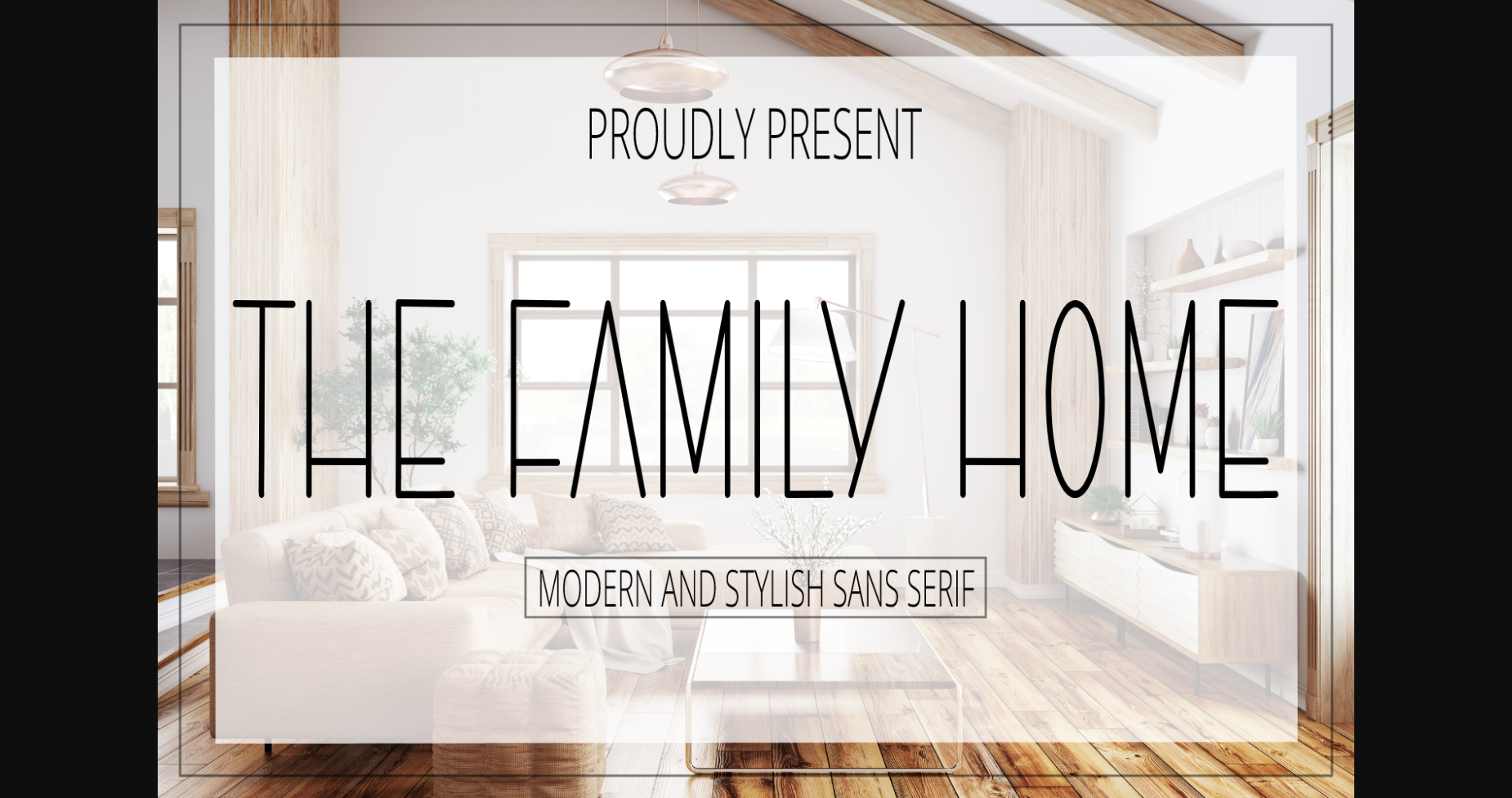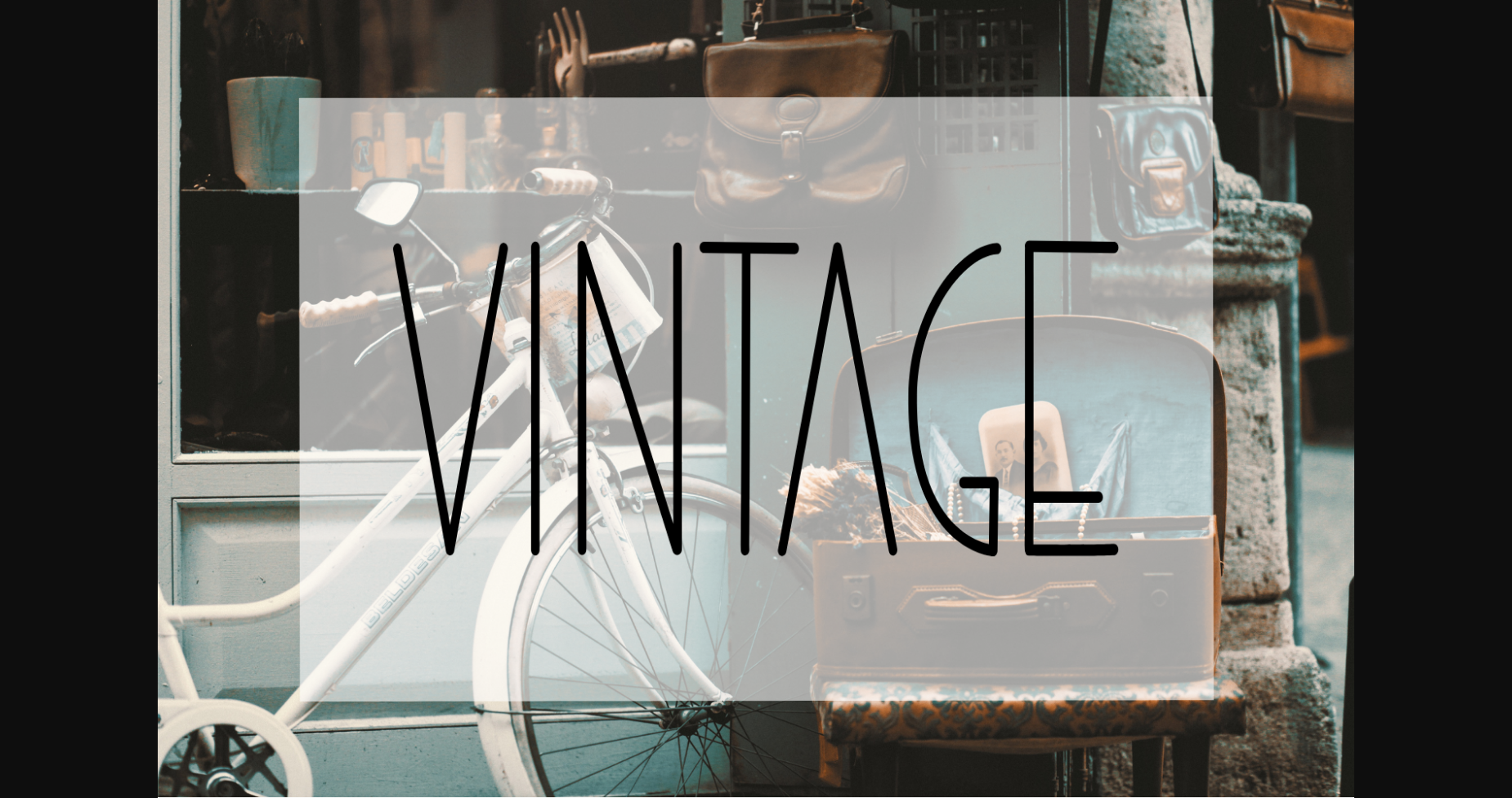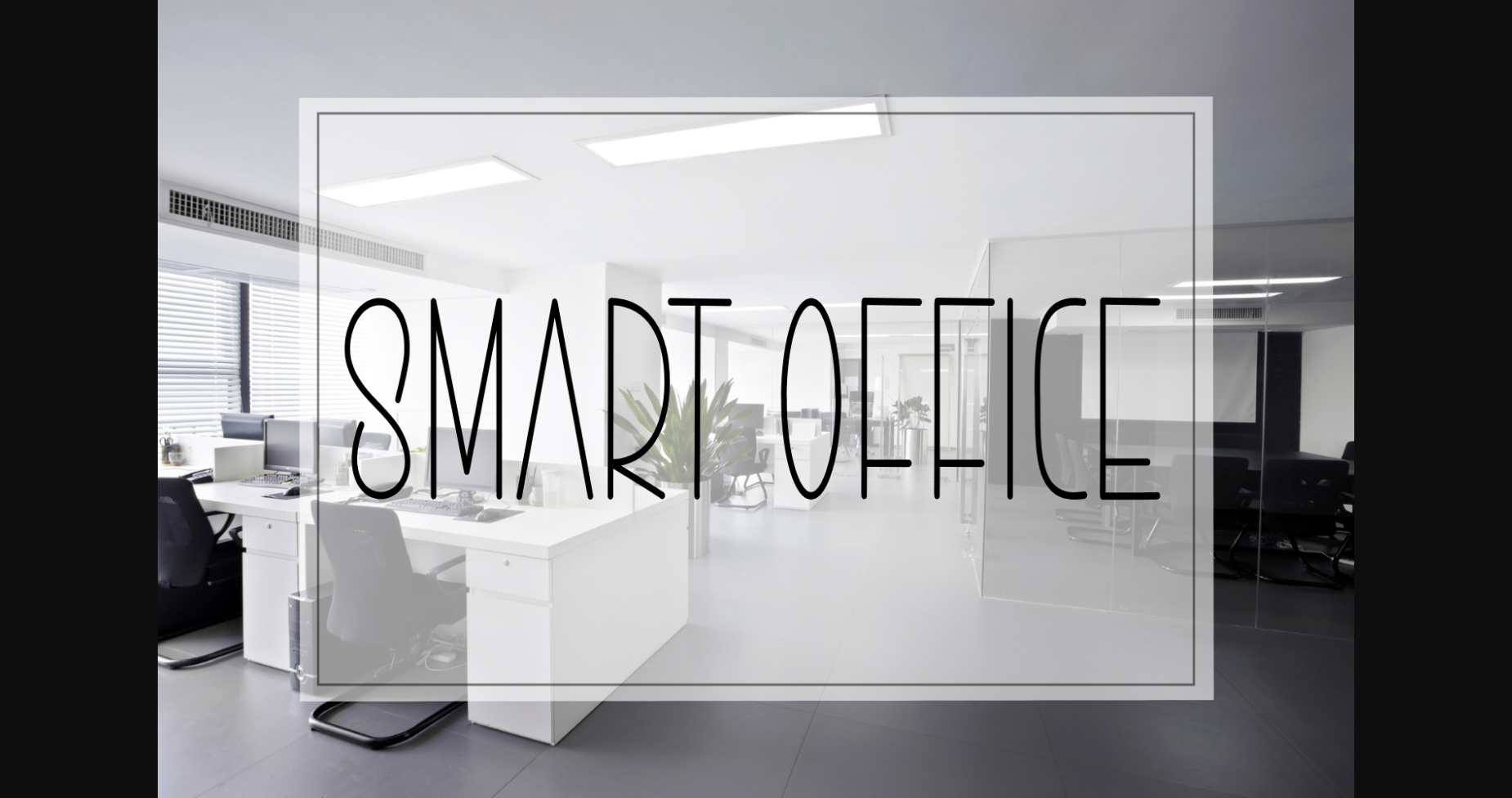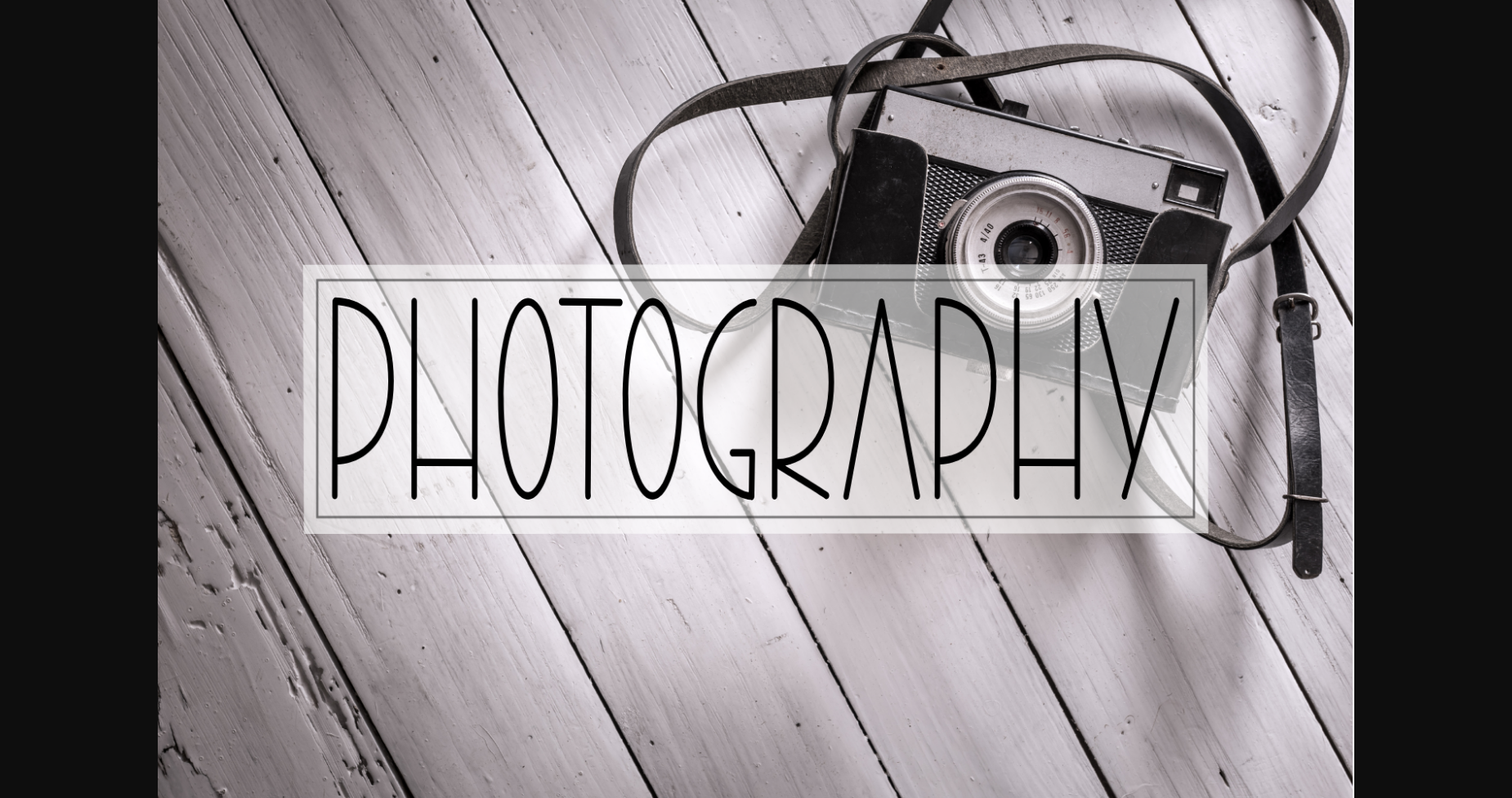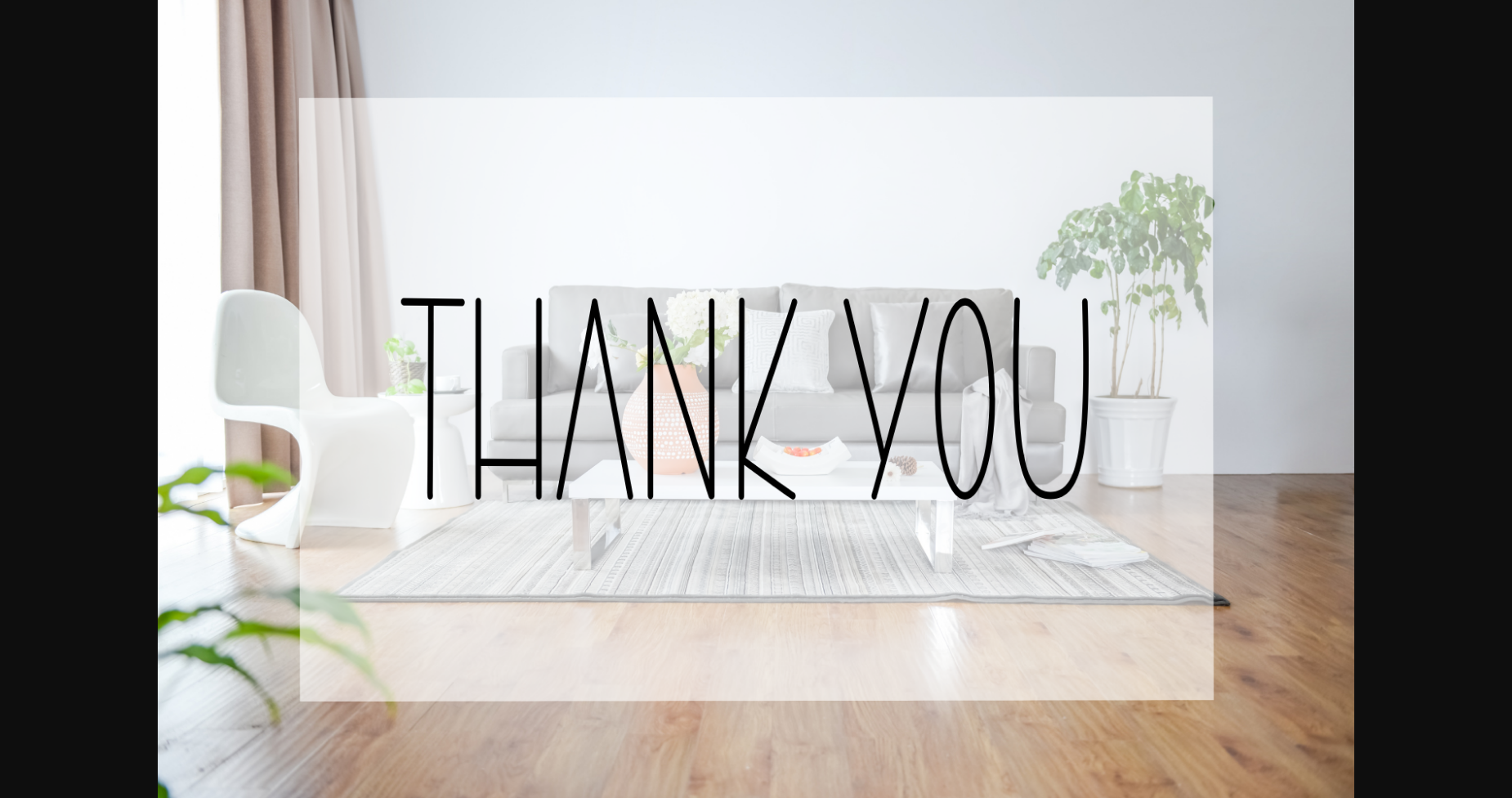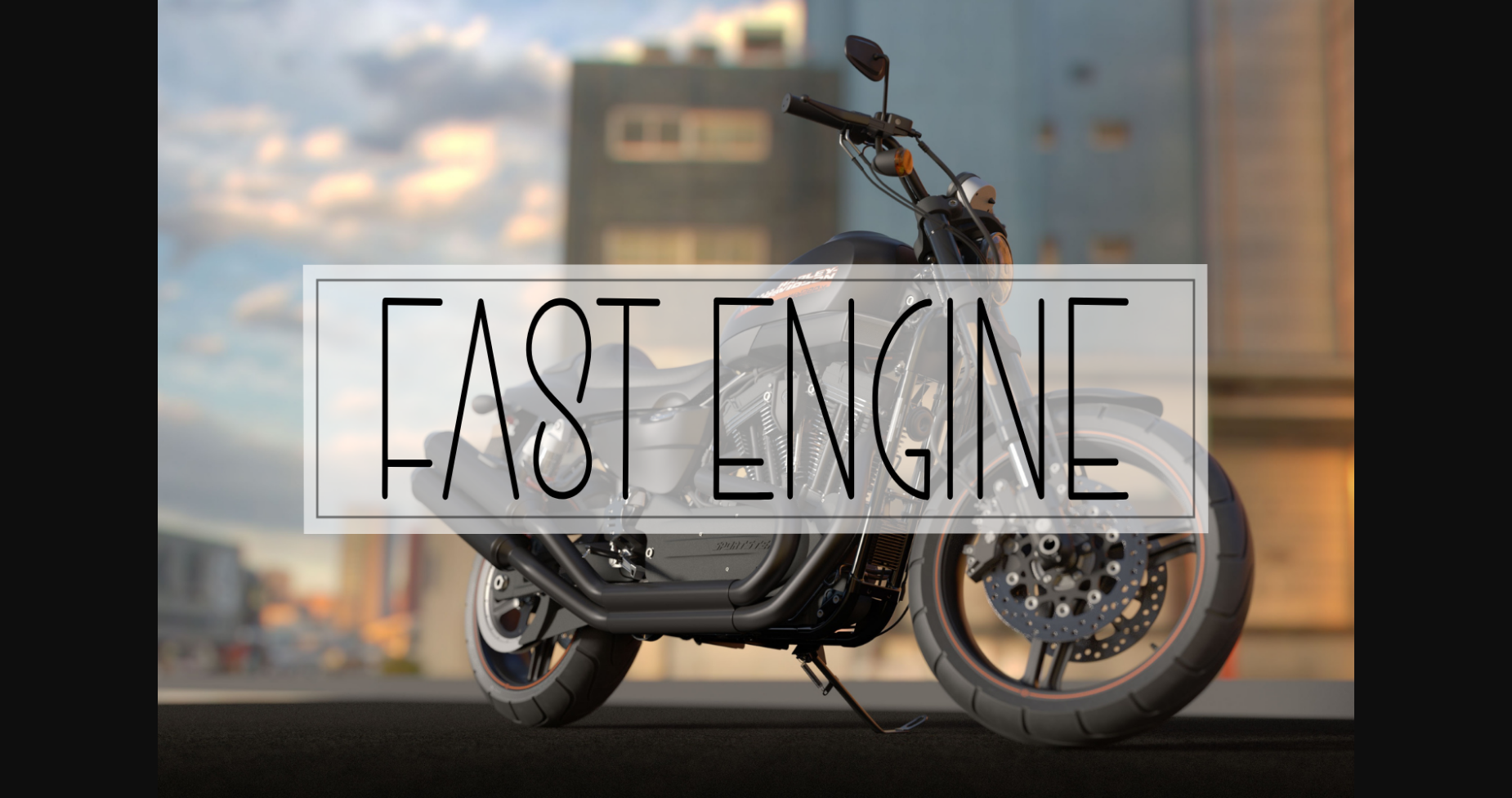
The Family Home Font
About The Family Home Font
The family home is a gorgeous sans serif font. Featuring lightweight characters and a minimalistic style, this typeface is perfect for inspirational wall posters or for communicating your own brand!